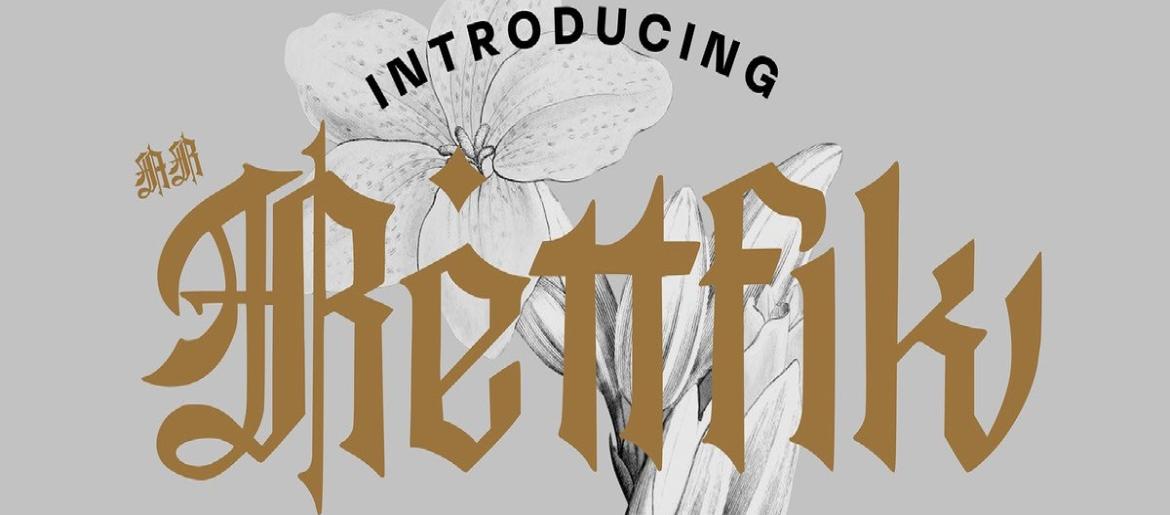
Rettvik Font
Rettvik is a blackletter display typeface produced as a multi-studio collaboration between Arendx Studio, Rendx Otf, Near type, and Hey Fonts — four Indonesian type designers and studios who have worked together across a series of free and commercial font releases on Behance. The font was published in September 2025 and follows a now-familiar release pattern from the Arendx Studio stable: a free personal-use demo distributed via Behance that provides the lowercase character set, paired with a full commercial version available through Creative Market that includes the complete uppercase and lowercase alphabet, numerals, punctuation, and a commercial license.